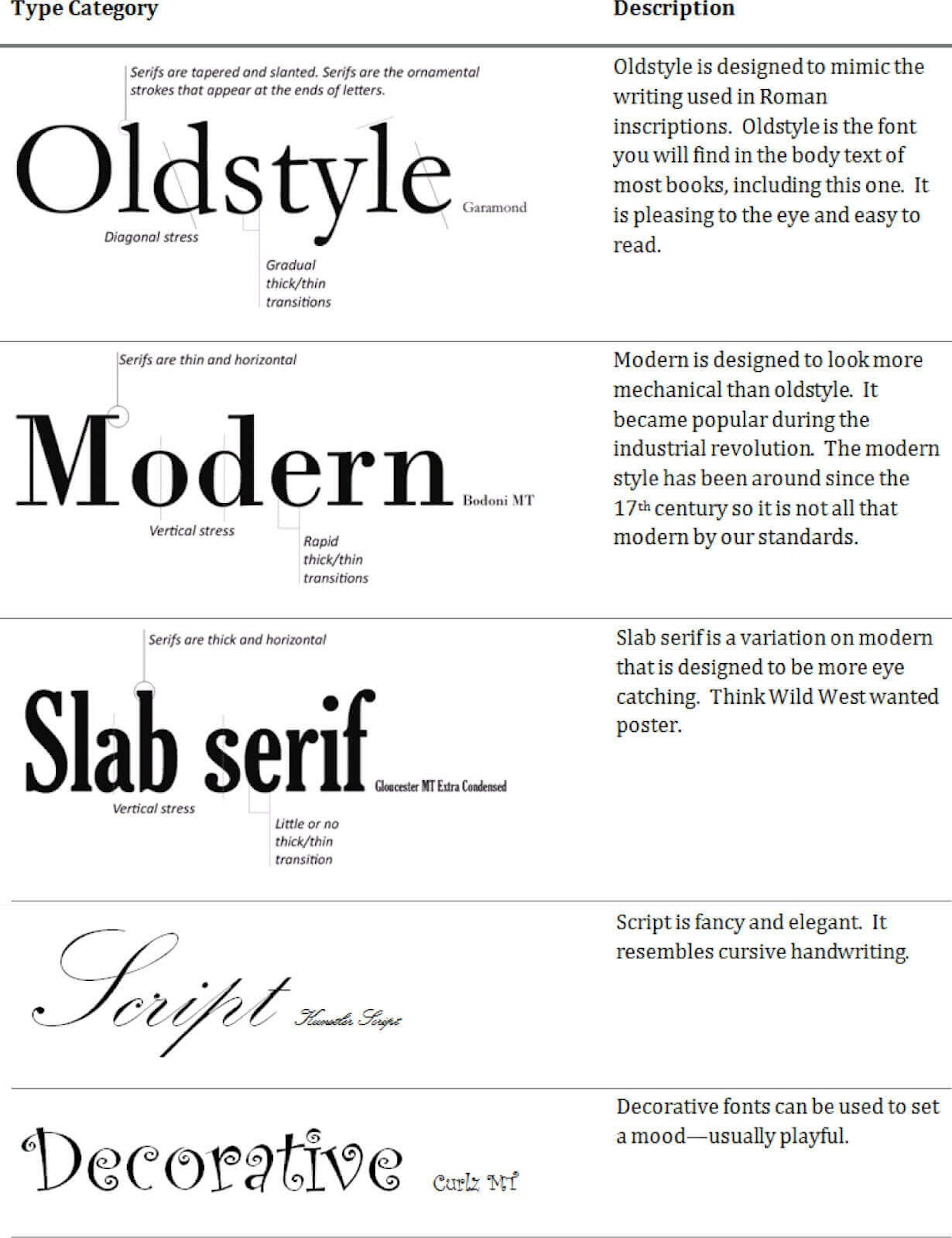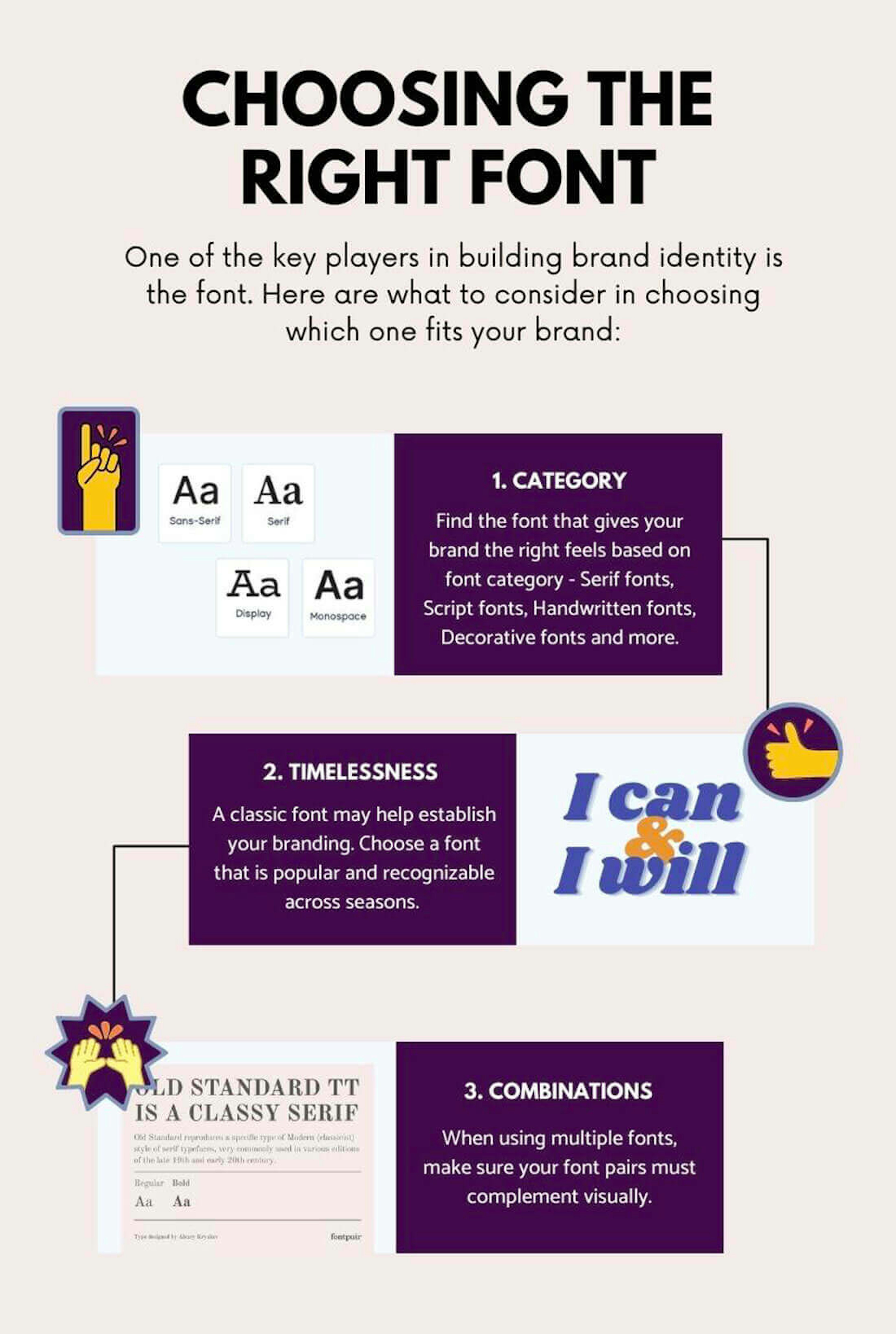
How To Choose the Perfect Colors And Fonts That Fit Your Brand
Align your brand identity with the right color palettes and typography
Branding is essential to the success of any industry. Although there's many ways to promote your company, effective branding is long proven to help achieve higher sales volume. Just having the best product or service is not enough. If your target customers do not recognize your brand, business success will be more difficult to achieve.
The influence of colors and fonts in branding
The colors and fonts a brand uses determines how it will influence its audience. Choosing them should be carefully planned so they can be successfully associated with your business.
A lot of popular brands are recognized for both their colors and fonts. Coca-Cola, for example, has that distinct script font that is familiar across generations. A deep forest green, on the other hand, is linked with Starbucks. Both companies have mastered the art of branding, which is why their brand design is well-known throughout the world.
Considerations when choosing the right color
There are several factors that must be considered when trying to pick the right color for your brand. These include, emotional response, the trends, industry standards, and combinations.
1. Emotional response
You always hear about how first impressions last. This is true for colors, so it’s worth careful consideration before picking one. Colors draw out emotions and feelings. According to a study, up to 90% of customers make an initial impression just by looking at brand colors. In short, they impact on whether customers decide if to engage with your brand, or not.
Brands with successful color schemes did not do it by accident. They did their research well and used colors to their advantage. The red color of Coca-Cola, purple color of Cadbury, and white color for Apple are great examples on how colors helped create a solid visual identity for their customers.
Understanding what colors mean is the first step in choosing the perfect color scheme.
Red - associated with love and passion but it could also induce feelings of excitement, adventure, and violence.
Pink - related to anything feminine, romantic, youthful and sweet.
Orange - represents productivity, success, determination and vitality.
White - signifies purity, cleanliness, and simplicity.
Purple - has long been associated with royalty, wealth, spirituality, and creativity.
Brown - denotes nature, dependability, sturdy, and simplicity.
Black - effective at creating images of elegance, drama, mystery, power, and strength.
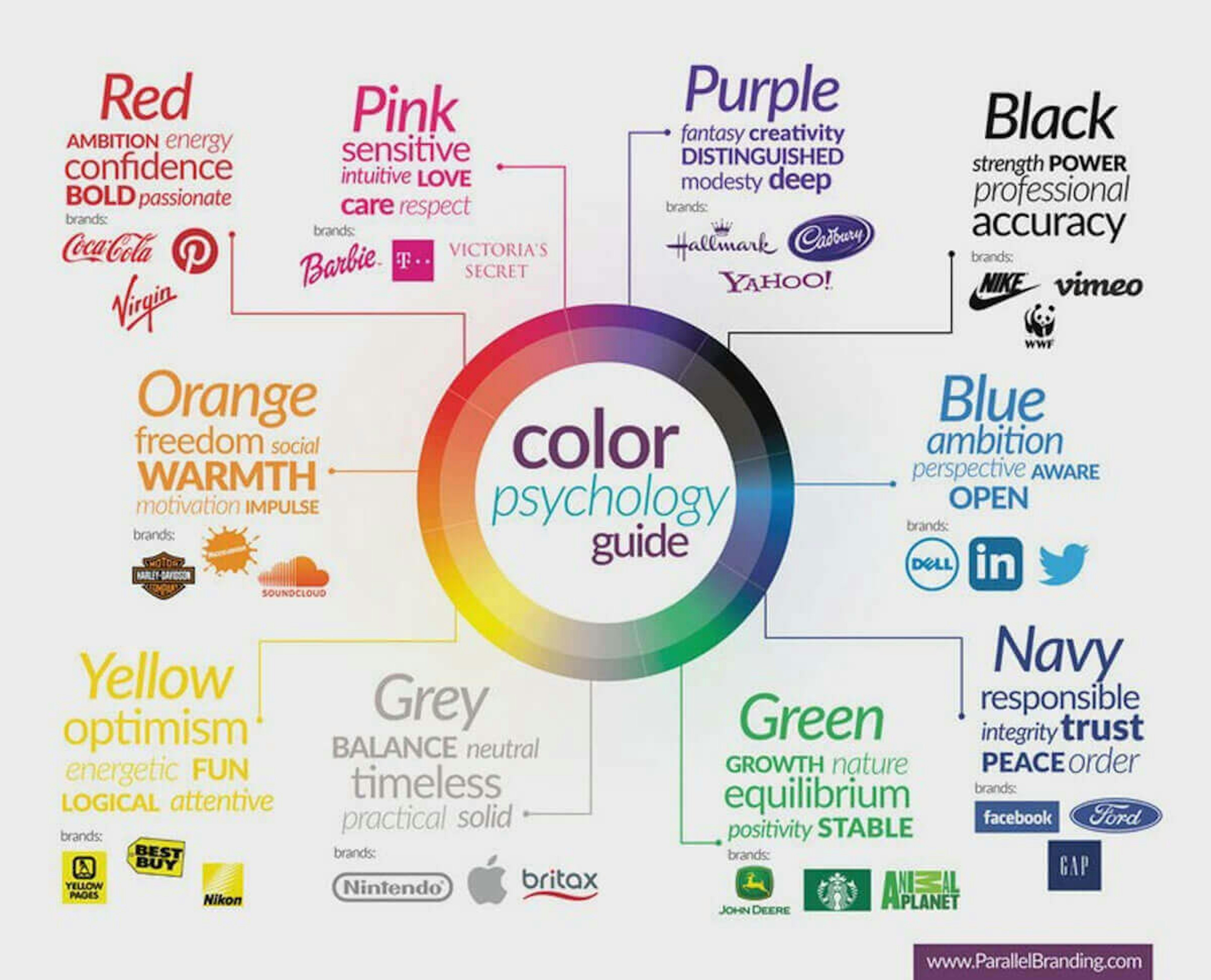
Psychologists have spent many years learning about the feelings that colors invoke. Their research findings will help you figure out which colors will best translate your brand message.
2. Trends
For the past few years, many industries are waiting to see what the next “color of the year” might be. It is usually decided before the year ends. Products and designs with the new color will start to come out right after the New Year’s celebrations.
Since the trend changes unpredictably, it can be difficult to pick one trendy color for your brand. This is because it might be less appealing once the hype is gone. What you can do with trending colors is to use them for your campaigns. This is essential if you want your brand to look fresh each year. Anything related to fashion and styling can benefit hugely from following color trends.
3. Industry standards
You must also consider the colors that are already well-associated with specific industries. Anything related with technology, for example, uses blue, black, and their variations. Delivery services, on the other hand, favor the brown color. Although it might do good to be different, incorporating colors from within your industry gives familiarity to your audience. This is a great first step to building brand recognition.
4. Combinations
Colors also interact with each other. Putting two colors that complement each other is enough to make heads turn. You can pick a main color for your brand then match it with other colors to achieve the best combination. You can always refer to the color meanings for guidance and to prevent clashes in looks and meaning.
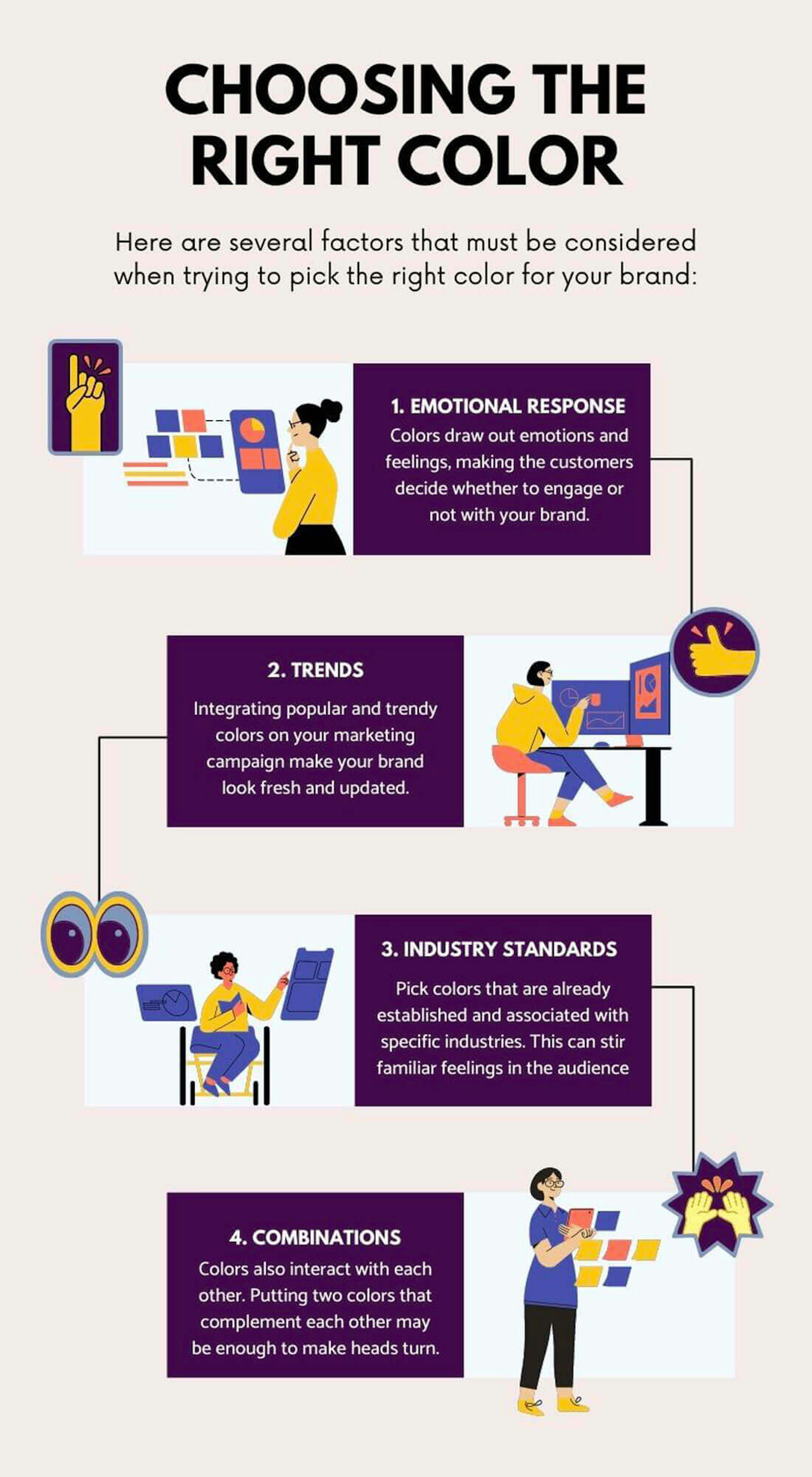
Considerations when choosing the right font
One of the key players in building brand identity is the font. It must come together with your design and colors to tell your brand story. The perfect font should be unique, legible, suitable for every platform, and should effectively communicate your brand personality.
Since it can be quite tricky to determine which font is best for your brand, there’s several factors that you must consider in choosing the right one:
1. Category
Just like colors, you can also base your font choice based on the feelings they evoke. You can actually search some websites to see which fonts are available for your industry, or certain subject matter. There’s also a font category that helps you to pair fonts that work well together. This will help narrow down your search to find the font that feels right for your brand:
Conclusion
Knowing about color psychology helps you see how people’s perceptions and behaviors are affected by colors. Fonts, on the other hand, help create a well-defined brand personality that is identifiable to the audience.
Both colors and fonts are key components in increasing brand awareness. They should communicate your brand personality effectively. Failure to do it right could hurt your chances of achieving the full potential of your brand. We hope this article point guides you to choosing the color schemes and fonts that will lead your branding efforts to success!